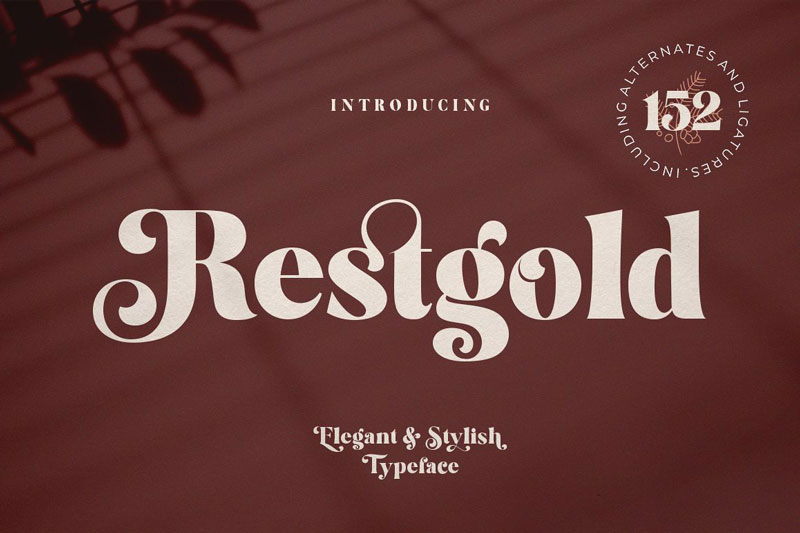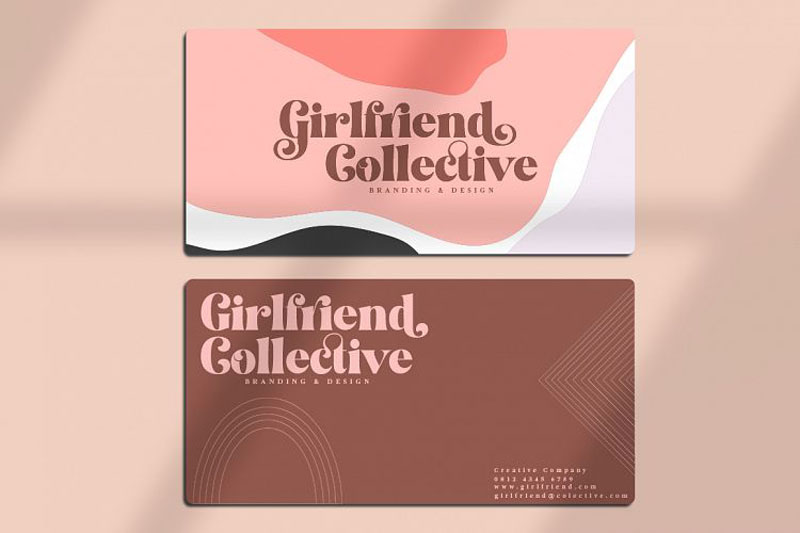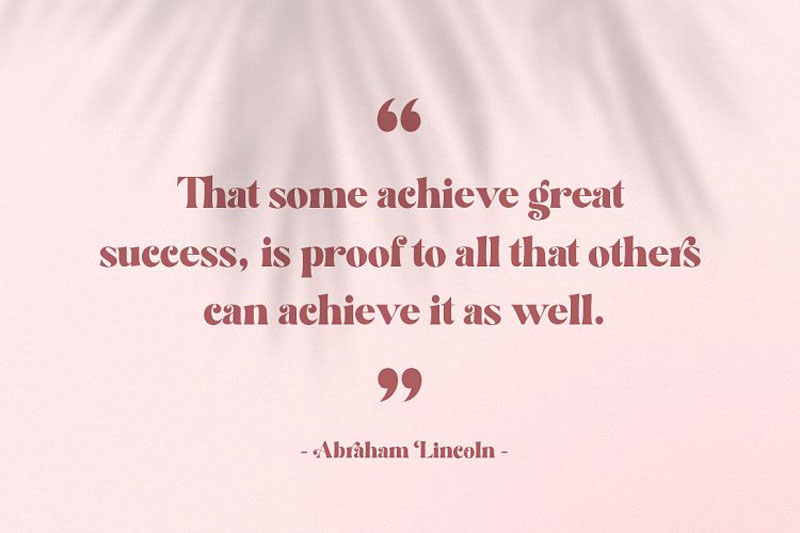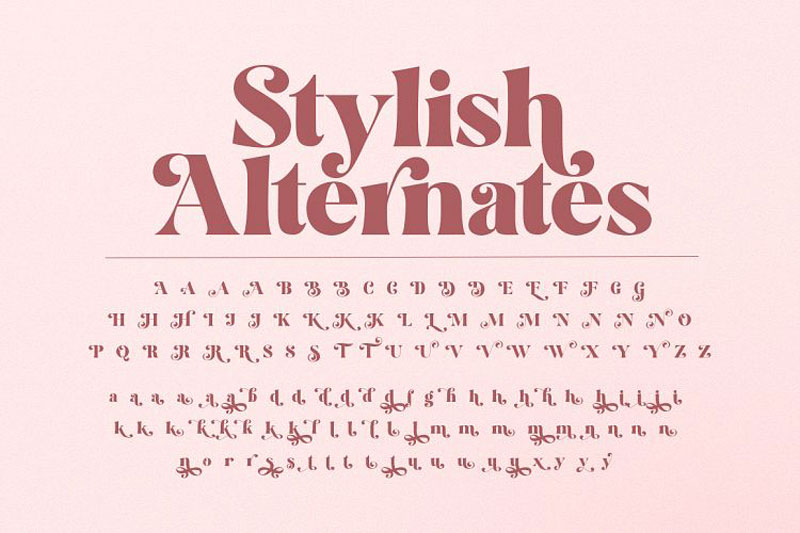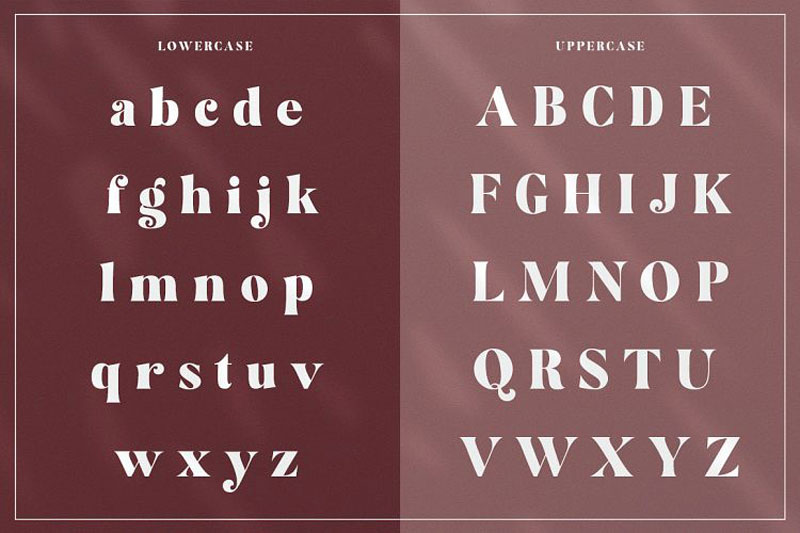
Restgold Serif Font
Restgold is modern Serif the typeface, high-contrast Serif typeface designed to create elegantly, original, and expressive characters. making it a complete type system for all types of use, from branding projects, logo, wedding designs, advertisements, product packaging, product designs, label, photography, poster, invitation, stationery, and much more.
Restgold is a serif typeface that is suitable for classy branding and editorial designs. Alternative versions include swash and more than 350+ glyphs and 16 ligatures, allowing for more stylized designs. Also checkout RASTELL – Script Font.
• 136 Stylistic alternates & 16 Ligatures.